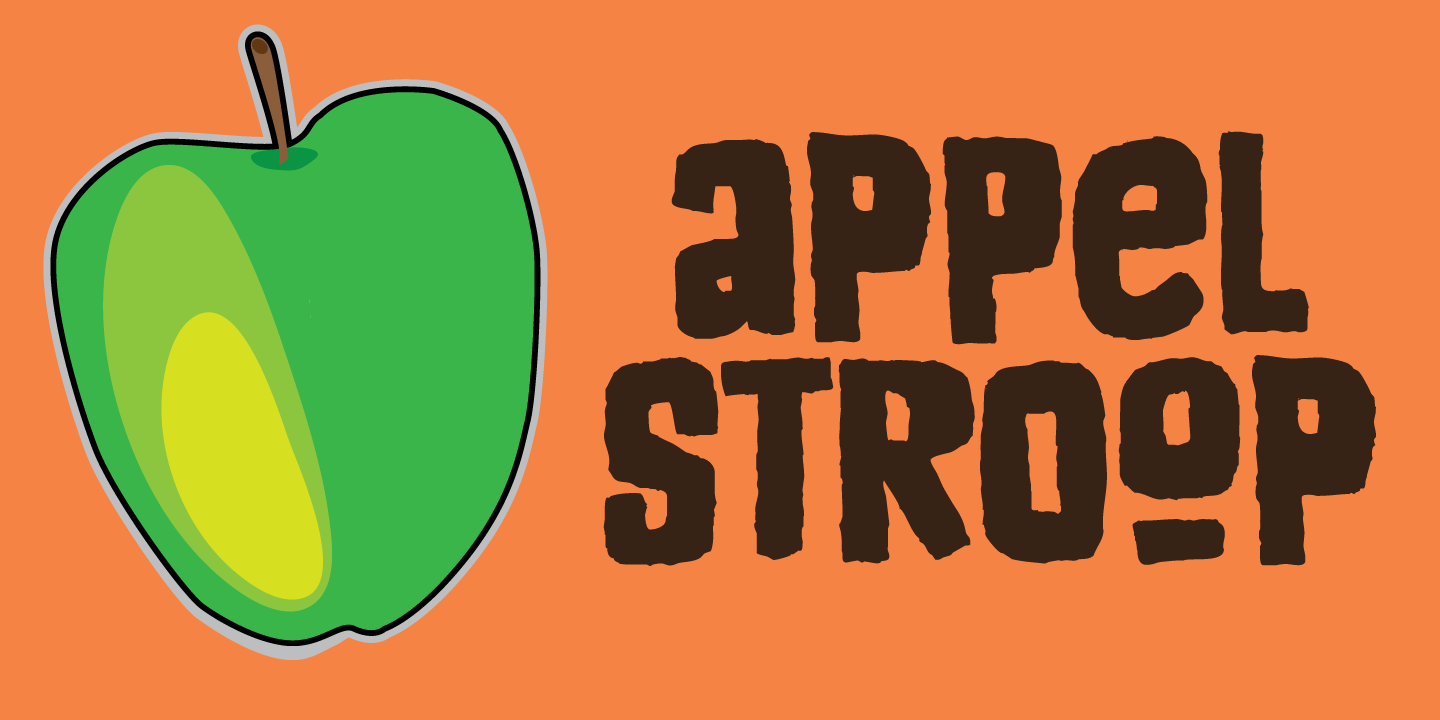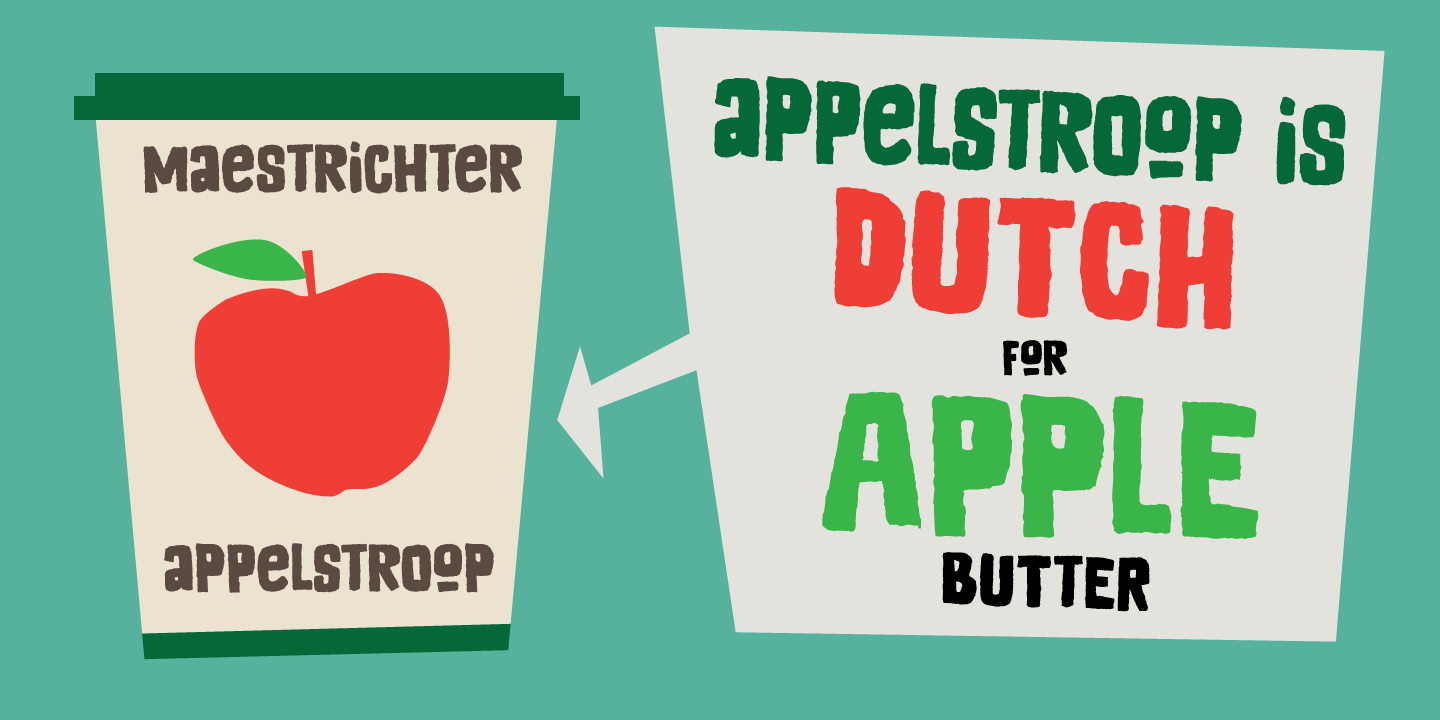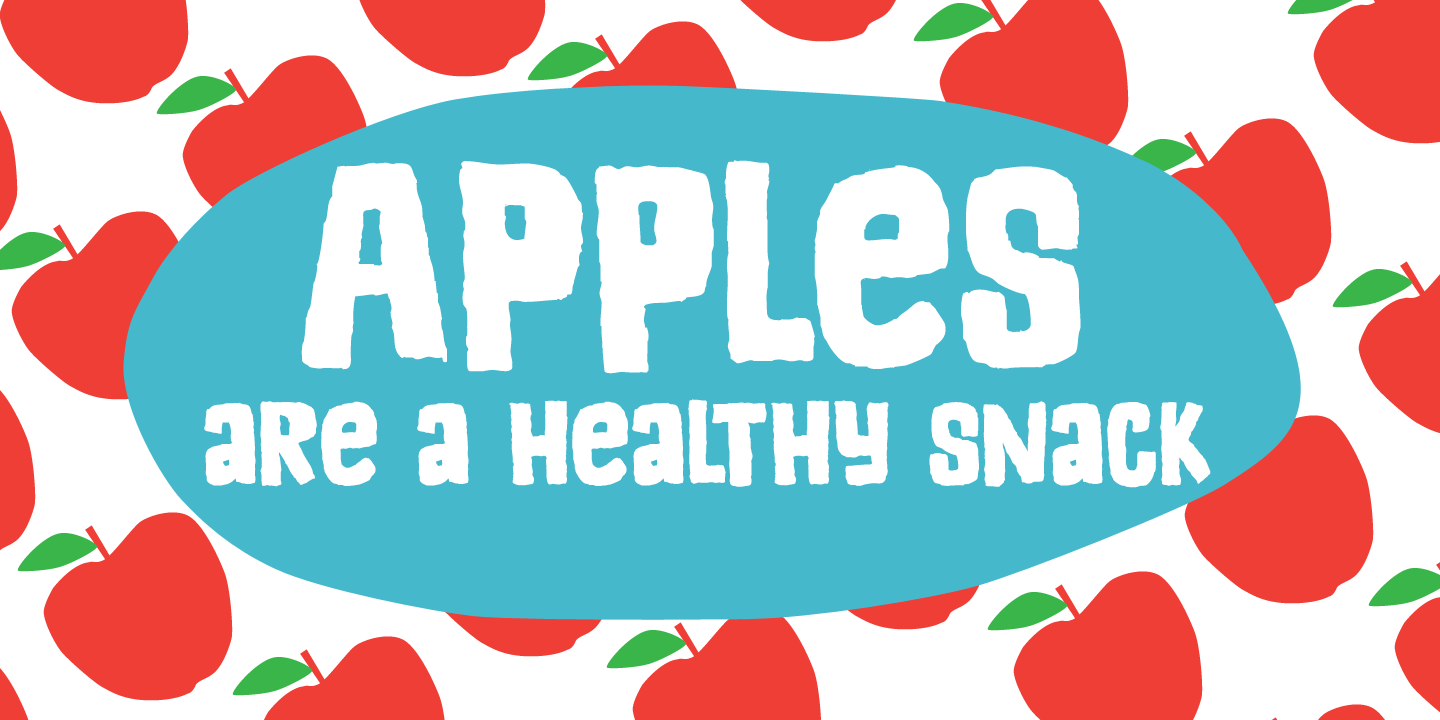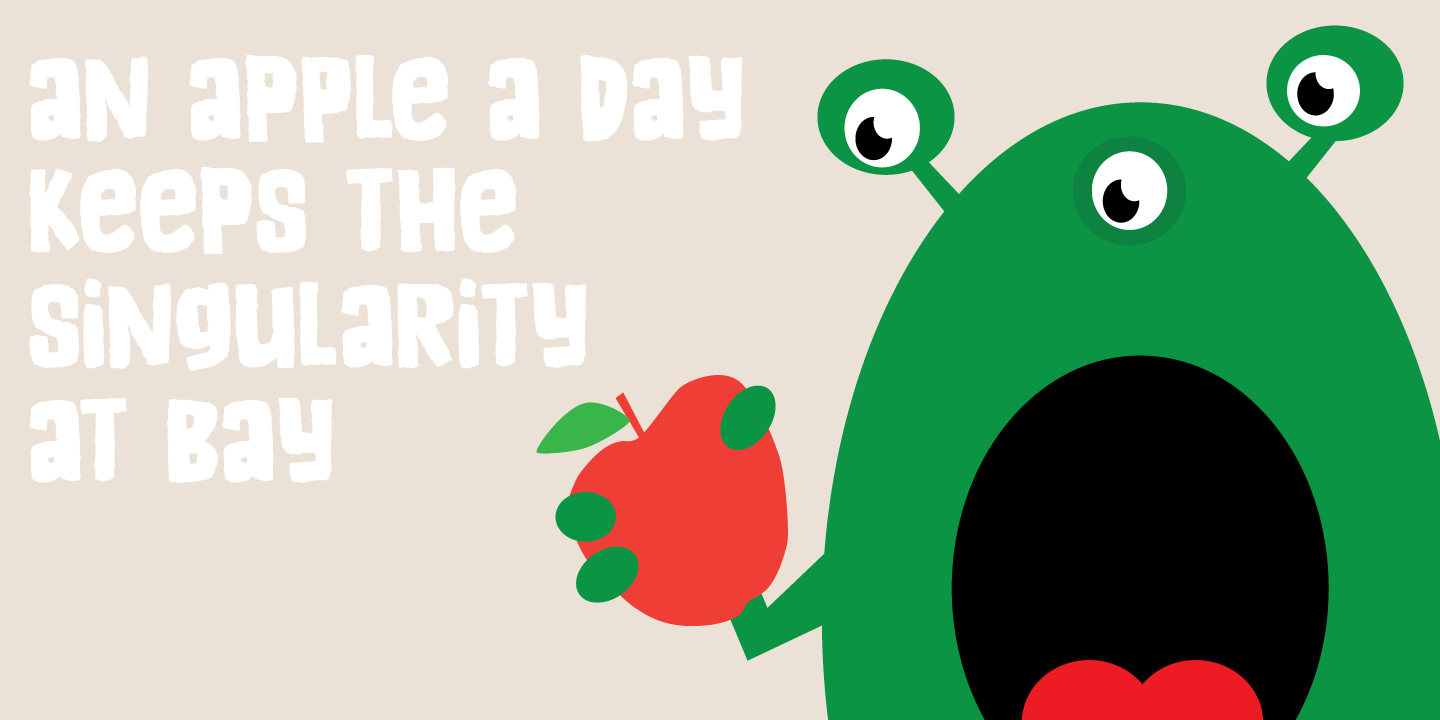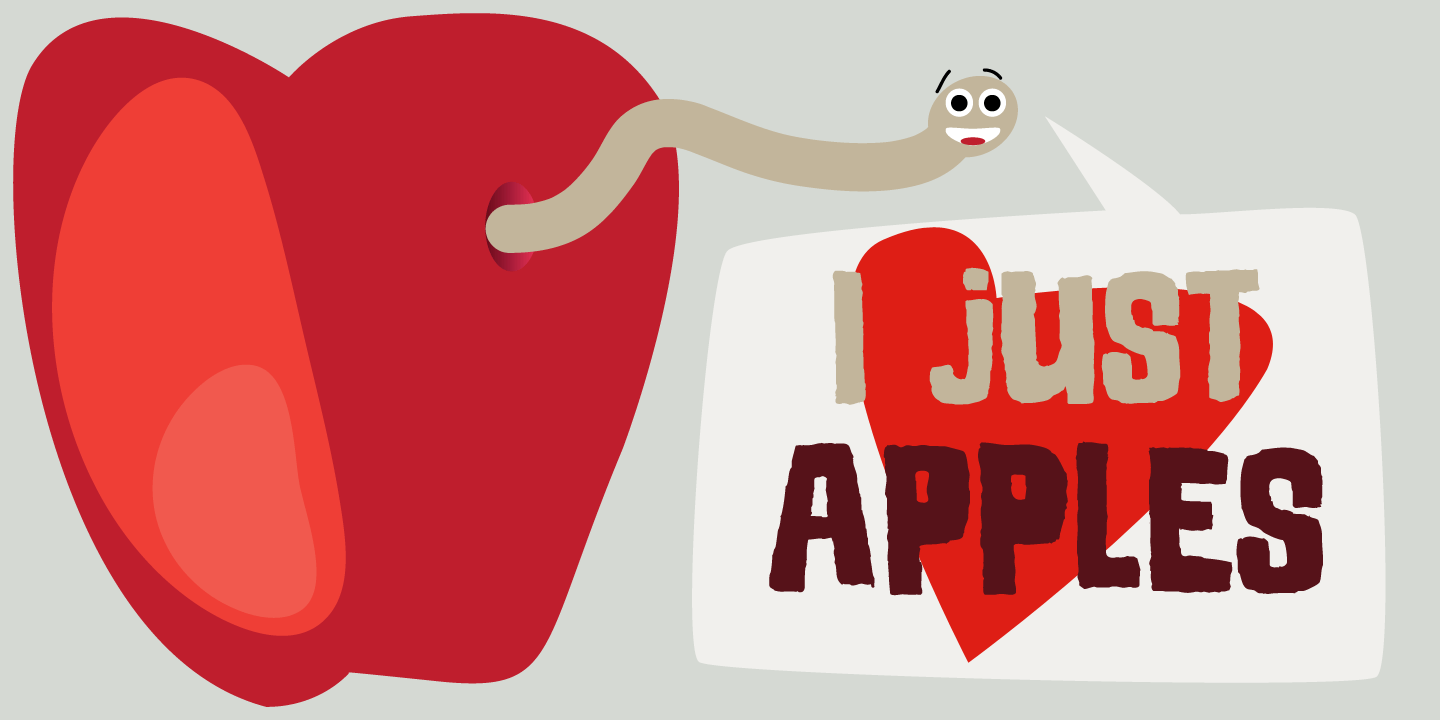
Appelstroop
Appelstroop literally means ?Apple Syrup? in Dutch, but it is also know as Apple Butter; a slightly sweet & sour goo that you can use to sweeten things, or, as we do in Holland, spread it on a sandwich. It's delicious, give it a try!
Appelstroop font is a chunky, slightly eroded affair. It is mostly all caps, with a few lower case glyphs thrown in for good measure. Use this sticky font for your product packaging, toys and kids book covers!